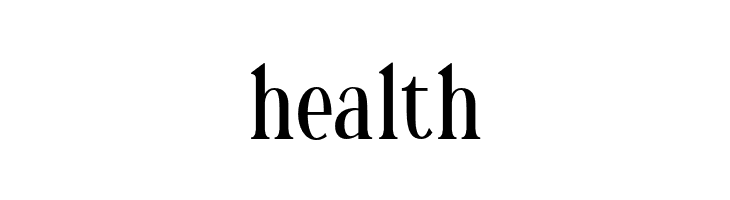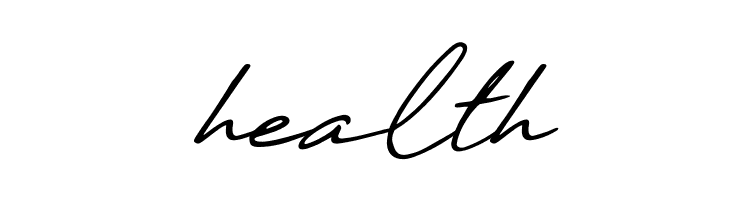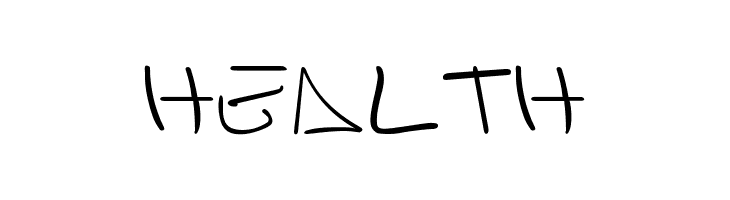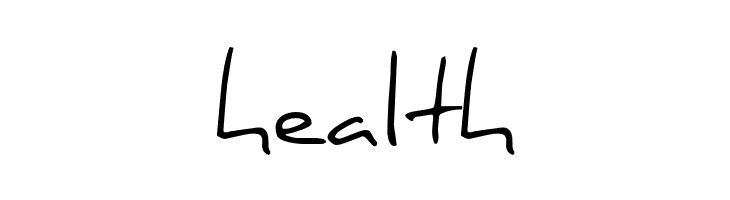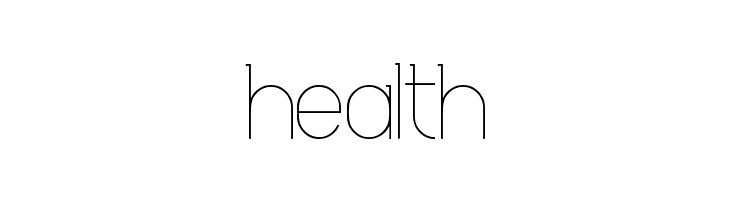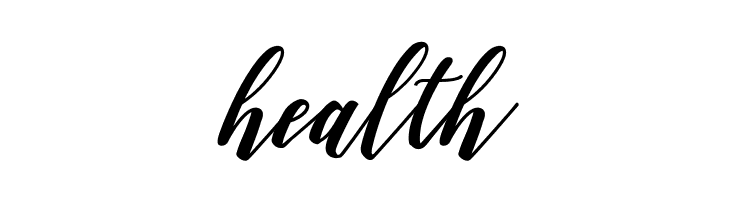
( Fonts by Daniel Werneck )
A bold, expressive handwritten font with a casual, personal style.
( Fonts by Daniel Midgley )
A casual, handwritten font with a natural flow and dynamic strokes.
( Fonts by David Espinosa - http://issuu.com/davidespinosa5/ )
A sleek, modern font with thin, elongated characters and a minimalist design.
A modern, geometric font with thin, uniform lines and a clean aesthetic.
A playful and charming handwritten script font with fluid, connected letters.
A cursive, handwritten-style font with elegant, flowing characters.
A classic serif font with elegant strokes and a refined appearance.
A fluid, elegant script font that mimics a handwritten signature.
( Mas Anis Studio - Naufal Anis - creativemarket.com/naufalans?u=naufalans )
A flowing, cursive font with elegant, sweeping strokes and a dynamic appearance.